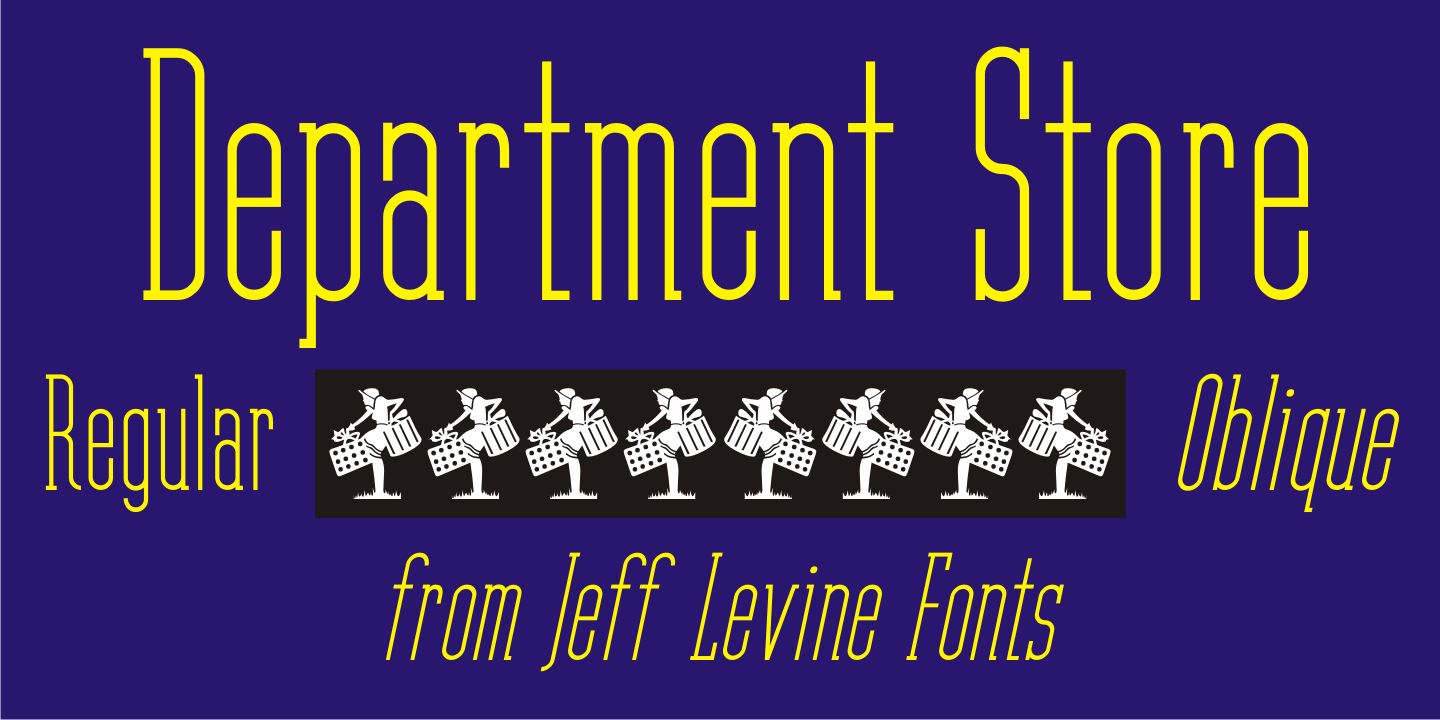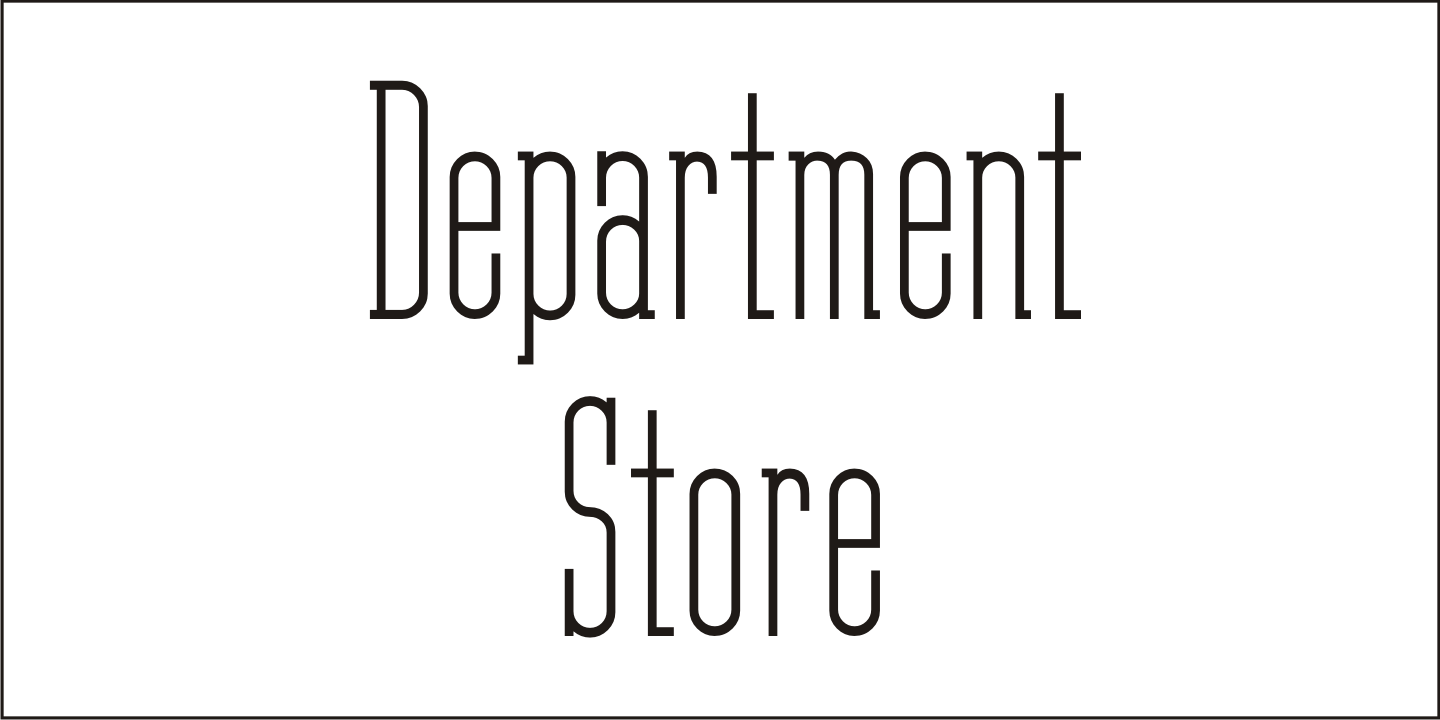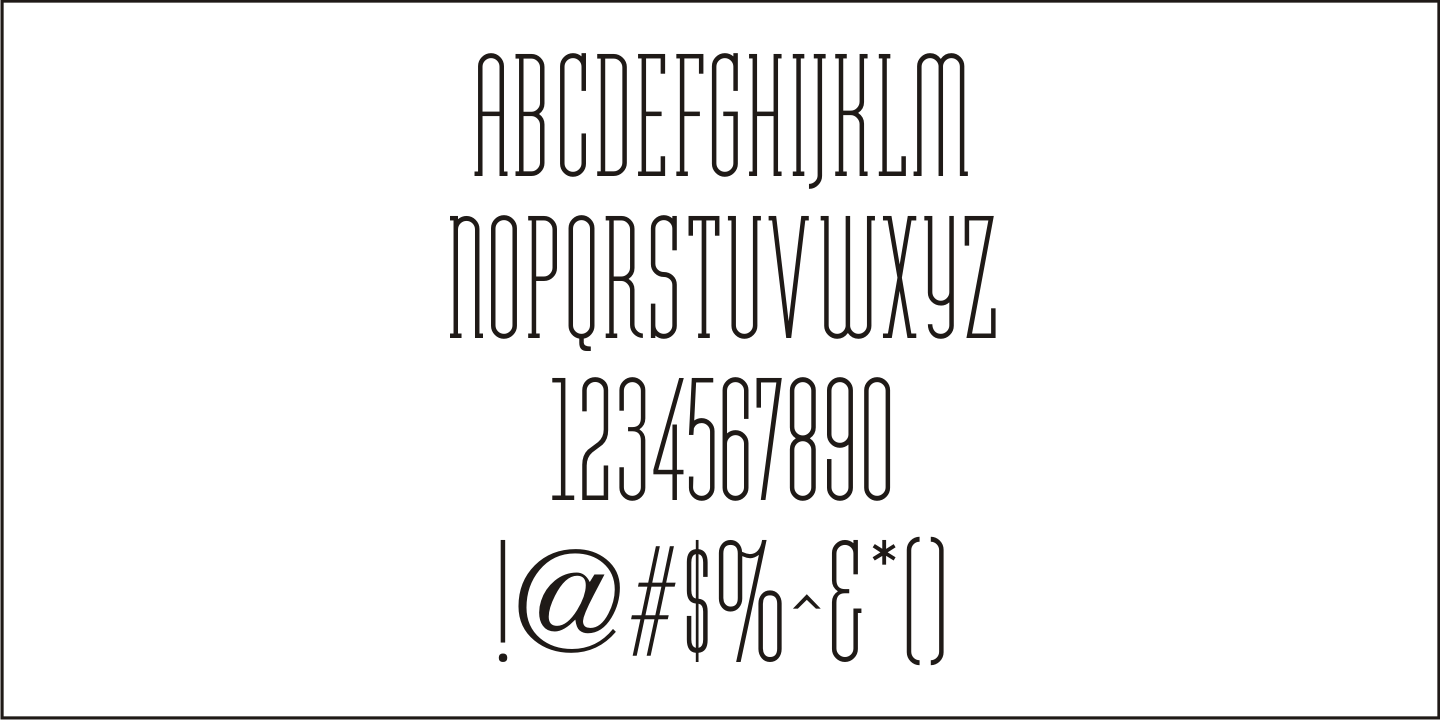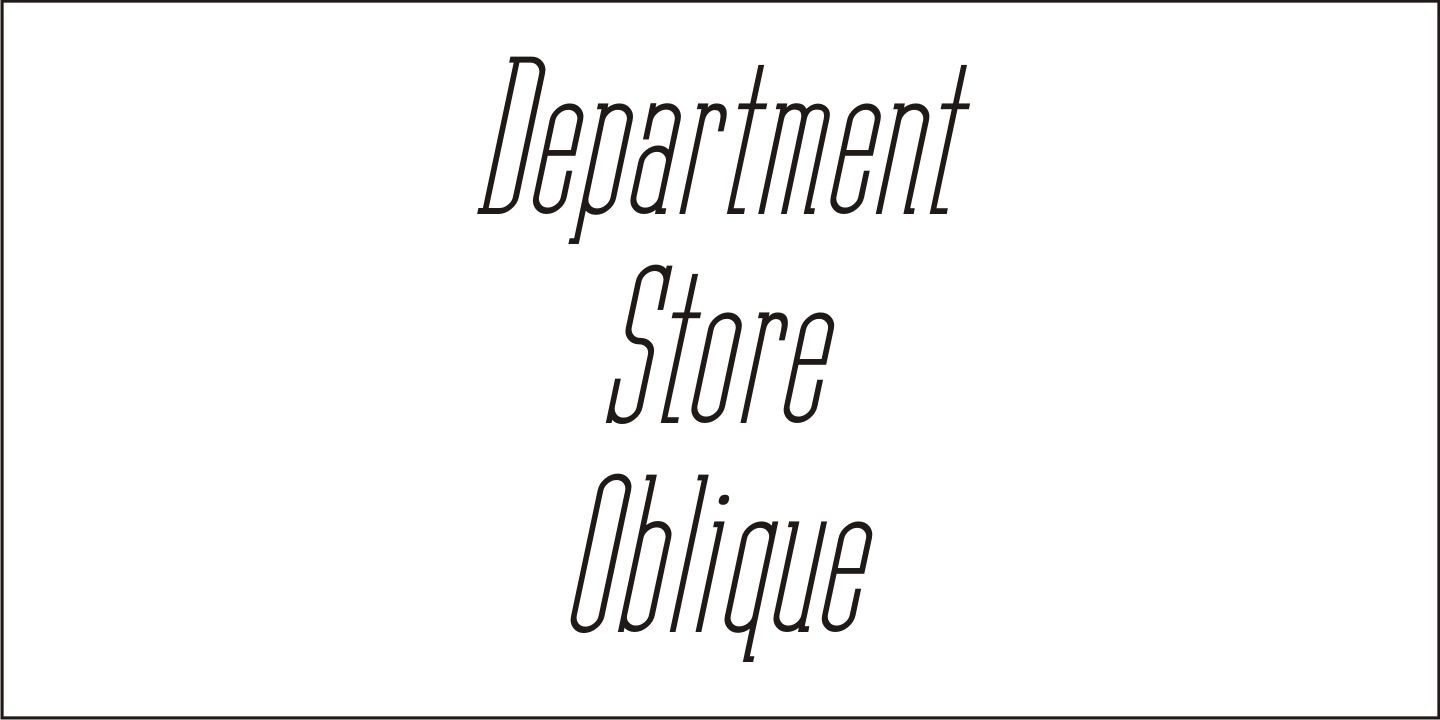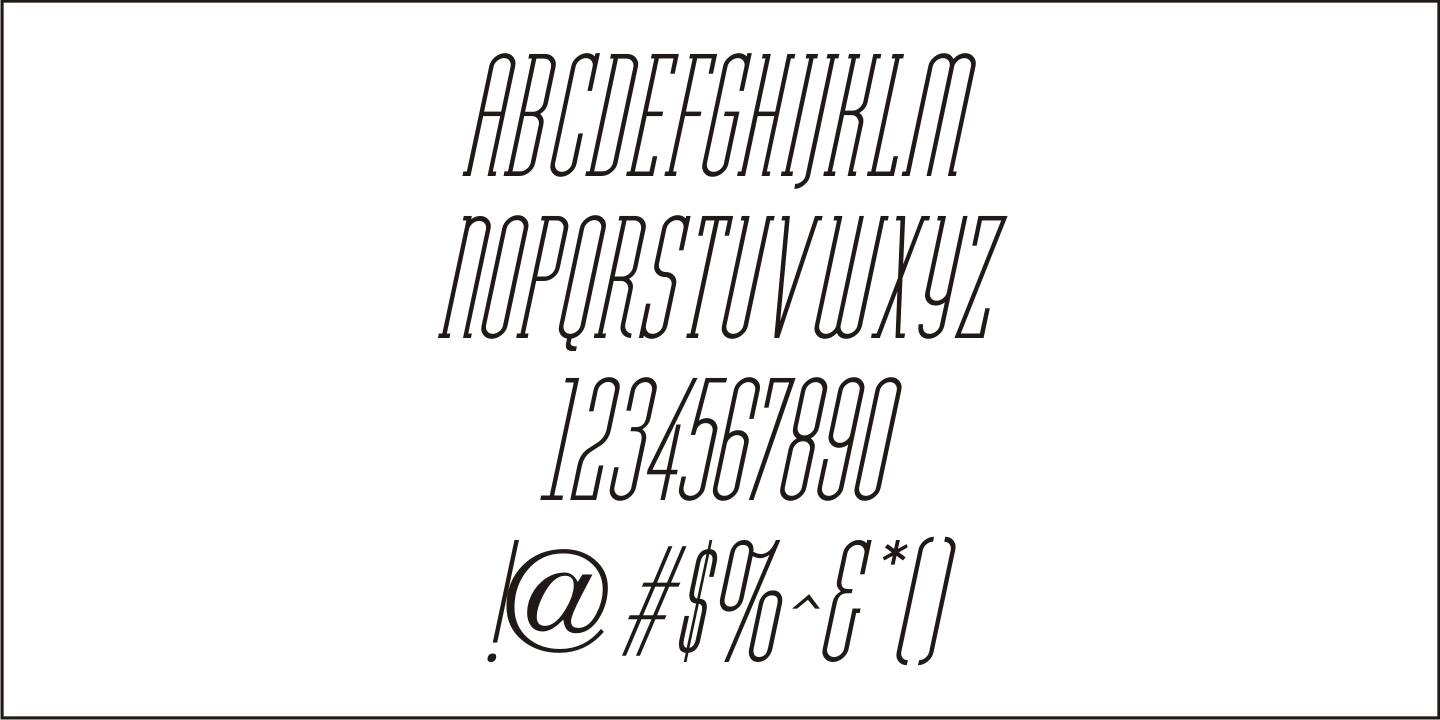
Department Store
Amongst a number of items for sale in an online auction was a font of metal type featuring a thin, condensed serif font with decidedly Art Deco styling.
This was the inspiration for Department Store JNL, which is available in both regular and oblique versions.
Department Store JNL Regular by Jeff Levine Fonts